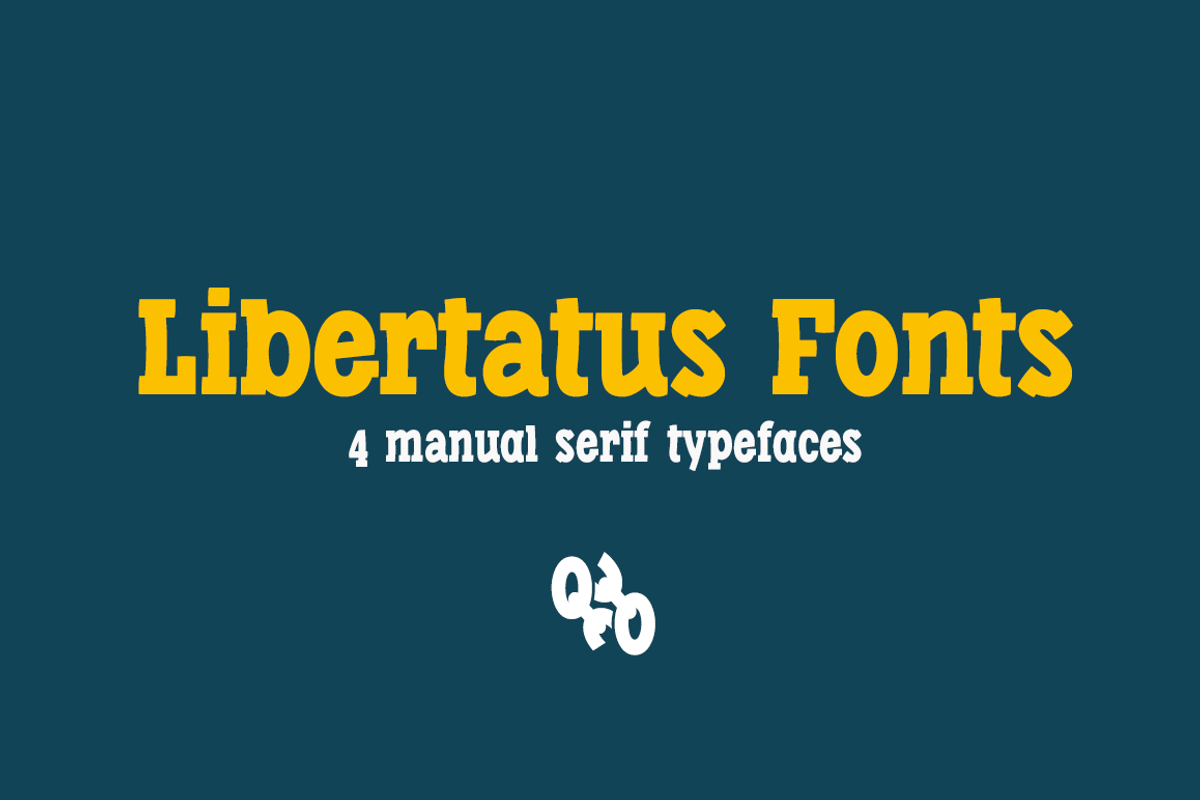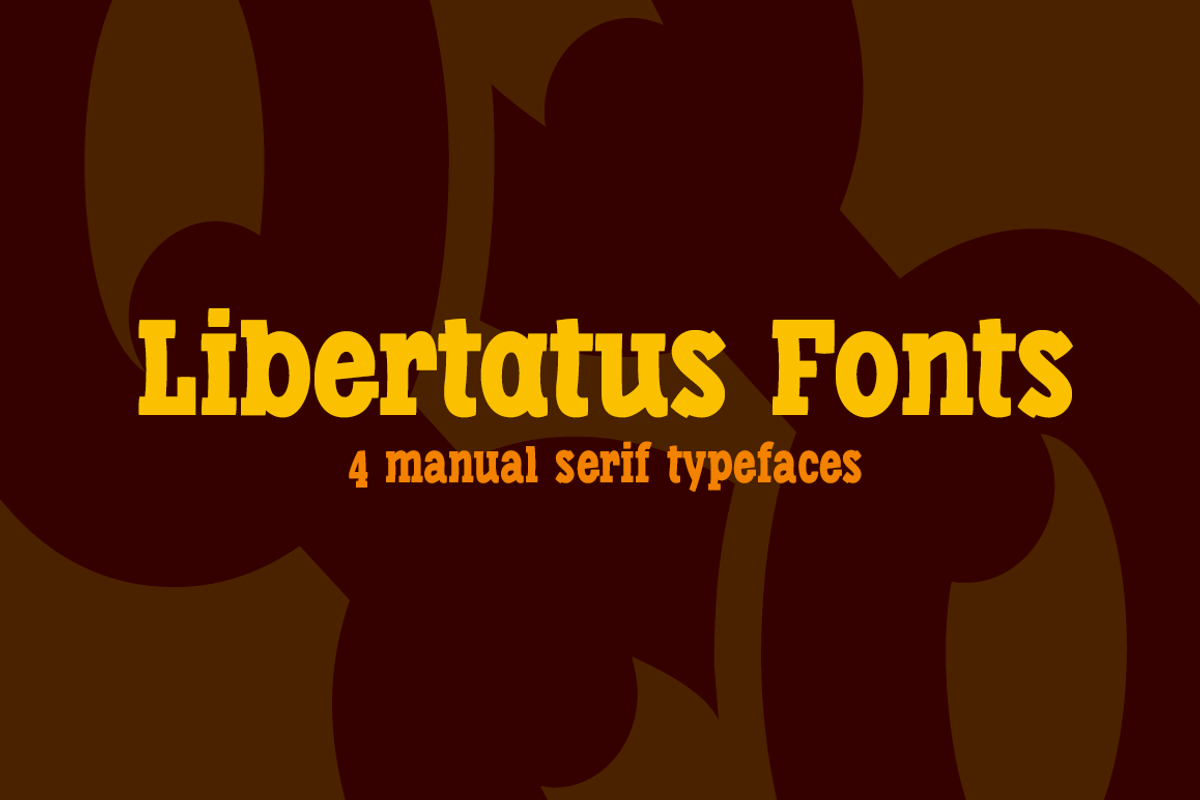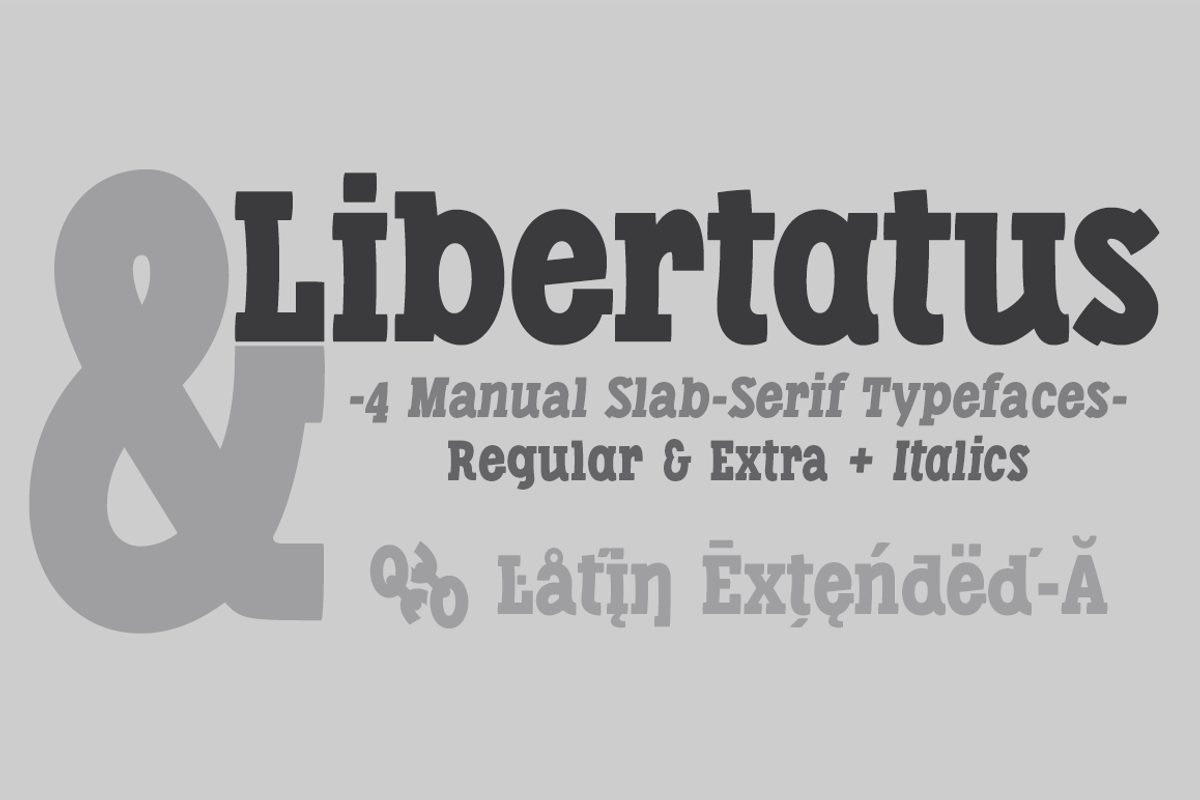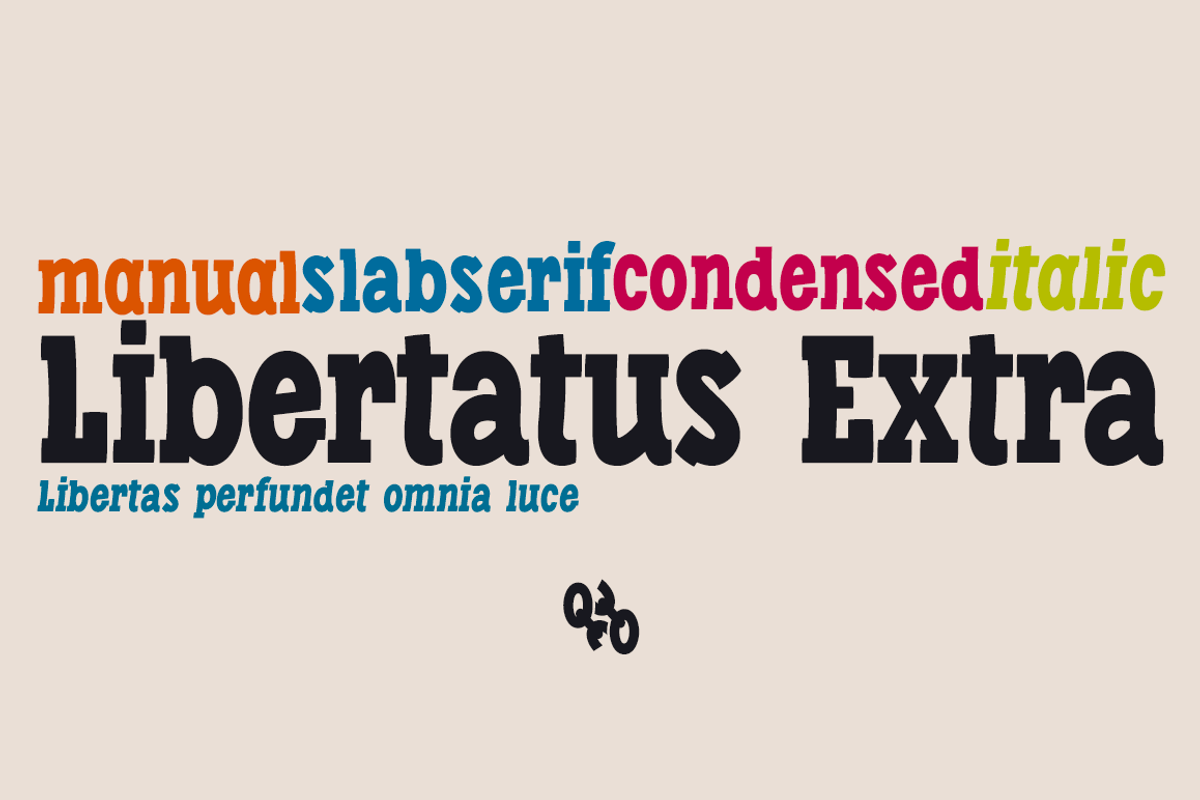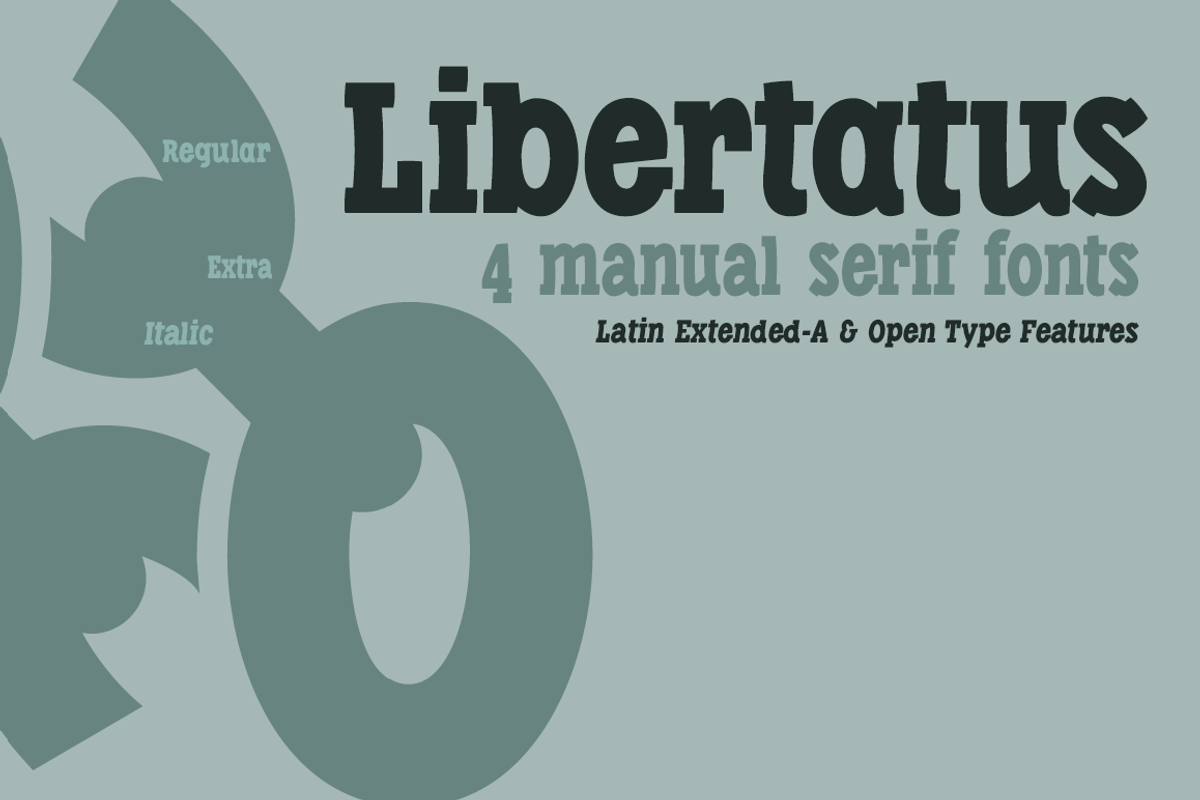
Libertatus fonts
Condensed fonts with thick Slab type serifs and two versions: Regular and Extra, the latter more condensed and with a different set of capital letters. The drawing of these fonts is manual, despite the fact that they are geometrically inspired fonts, I have modulated the antlers and terminals to achieve a spontaneous movement effect resulting in a fun and contemporary style. They include the Bitcoin symbol: Ligatures: b#
The inspiration for these retro fonts came from the typography used in an old humorous poster published in Prague, Czechoslovakia in 1935: "Das III. Reich in der Karikatur" by Heinrich Mann